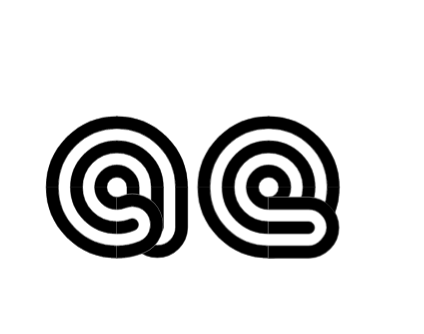
YYYYes!!! My fantasies about layers turned out to be reality.
Reminded me of the game "slither.io"
I love so much how you did it:
What a cool idea! I like it! BTW, put an eye over the G.
Thanks. Yes, those white gaps exist because of the inconsistency between curves of the connecting bricks. It seems filled, biline and triline curves are not the same. I think it can be solved if I use another bricks from the basic set, we'll see.
It is a very interesting path that you are starting, with layer overlays in black and white fonts. I tried something similar with this one. Keep on.
This reminds me of those Neon letters often found on signs hung throughout stuff on buildings and restaurants (I don't know if this can be worded better)
Yes, that's a real style actually:
Great way to achieve overlaps through the use of layers.
Awesome font! 10/10